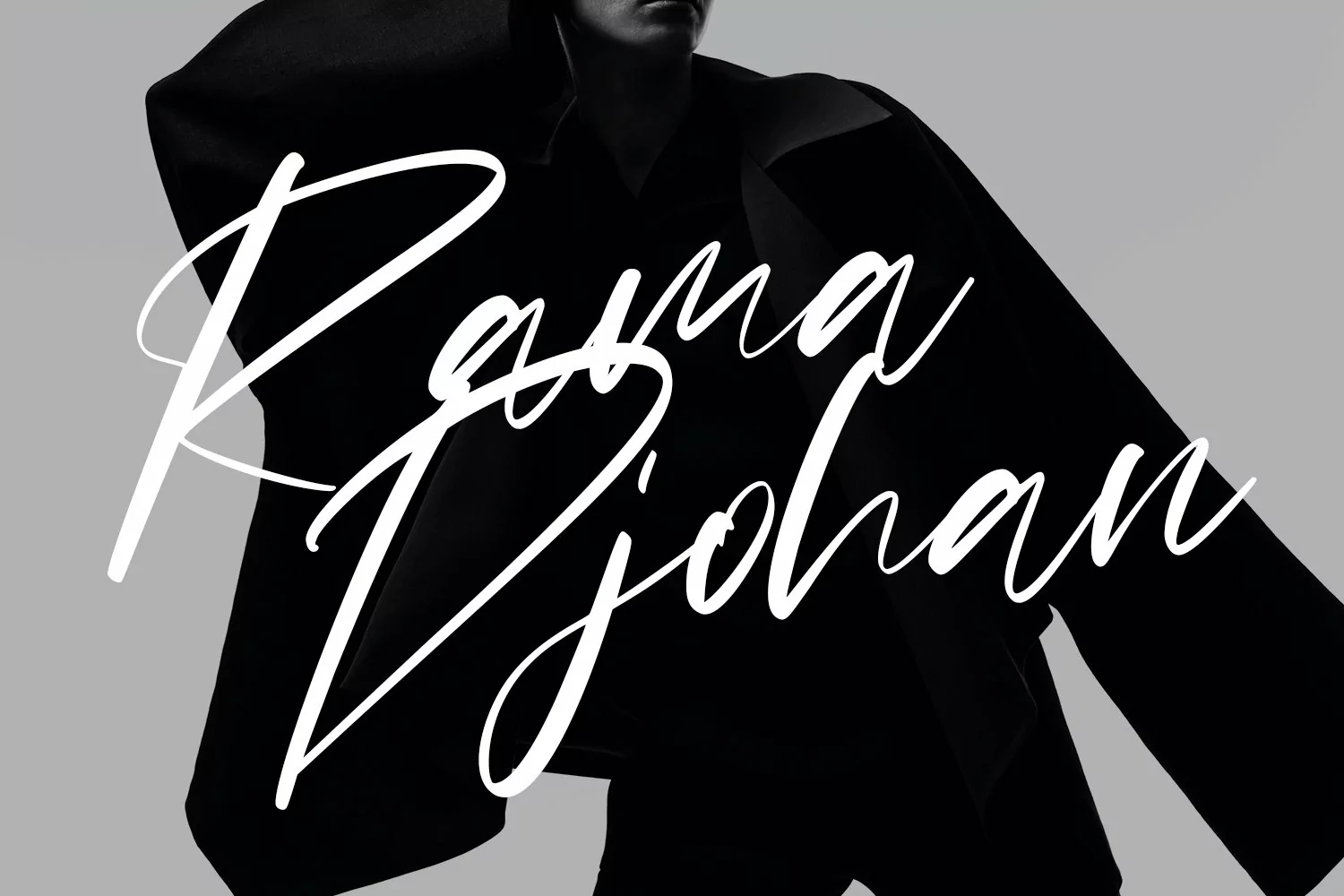
Mc Havoks is a super casual signature font. With thin stroke, slanted, unique and fun character with a bit of ligatures. To give you an extra creative work. Mc Havoks font support multilingual more than 100+ language. This font is good for logo design, Social media, Movie Titles, Books Titles, a short text even a long text letter and good for your secondary text font with sans or serif. Make a stunning work with Mc Havoks font.
Mc Havoks